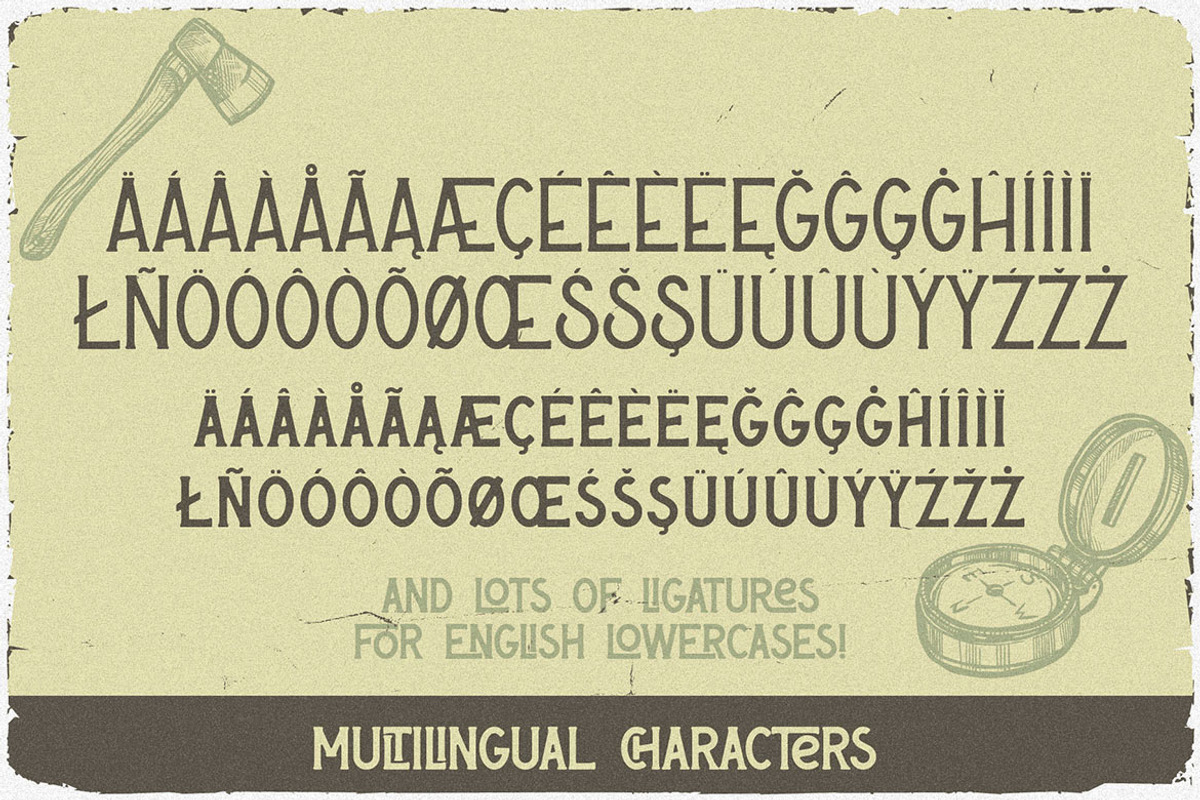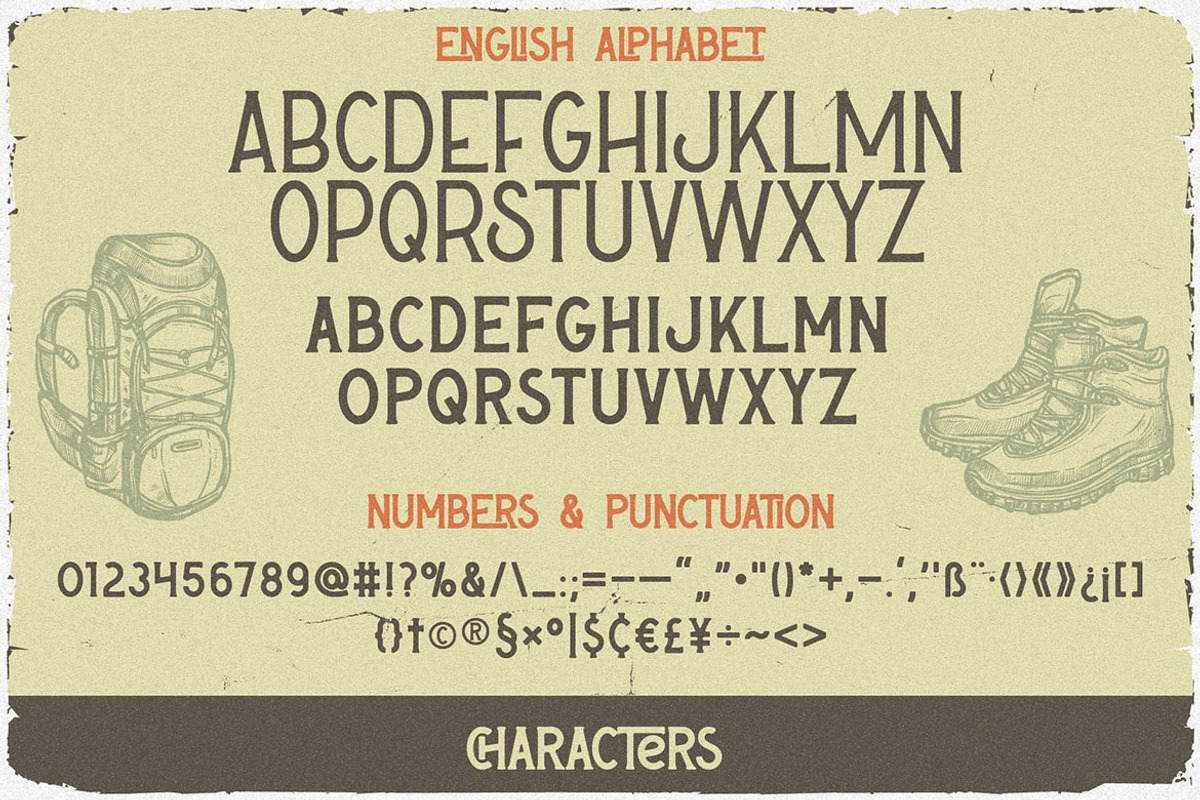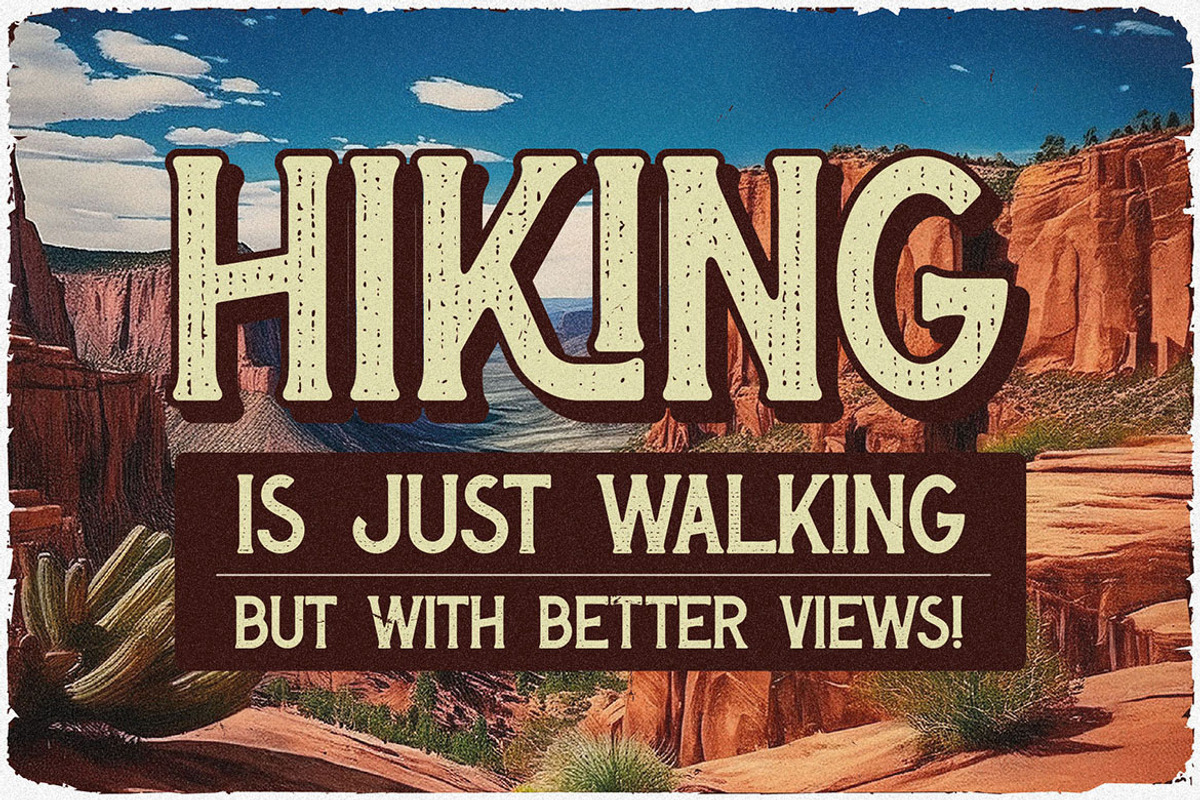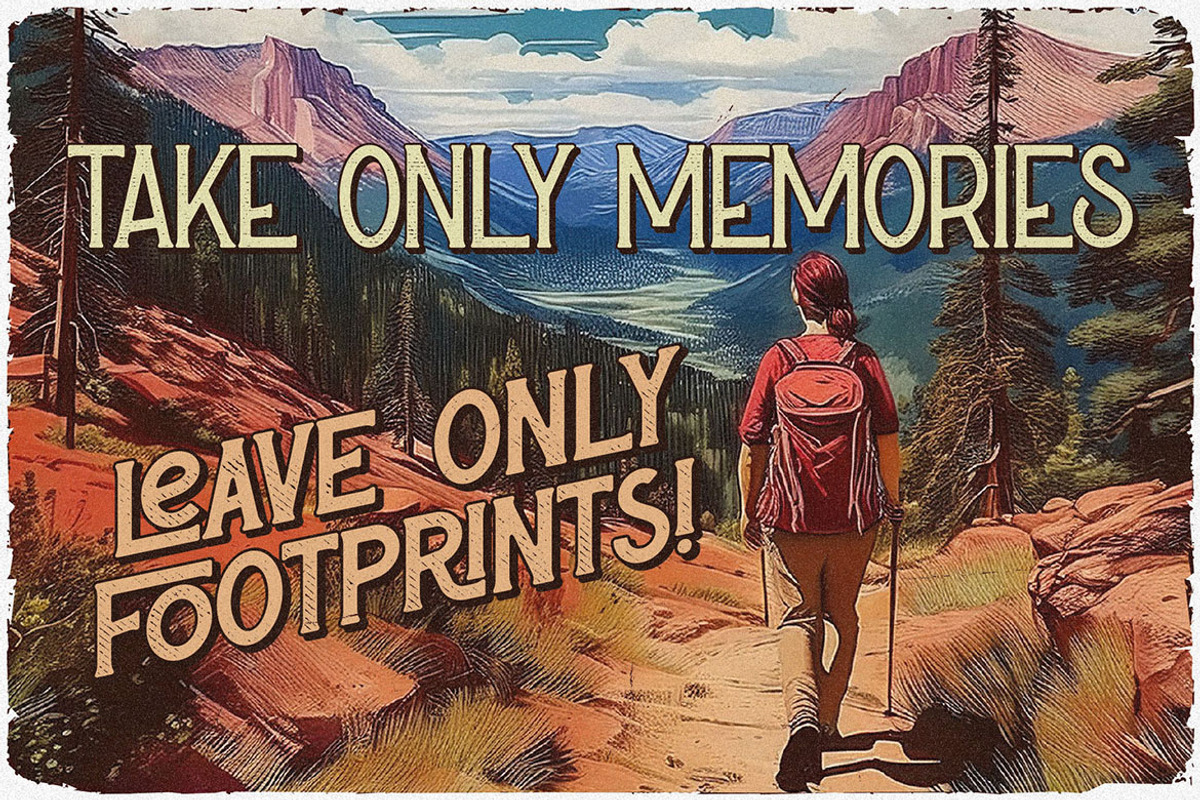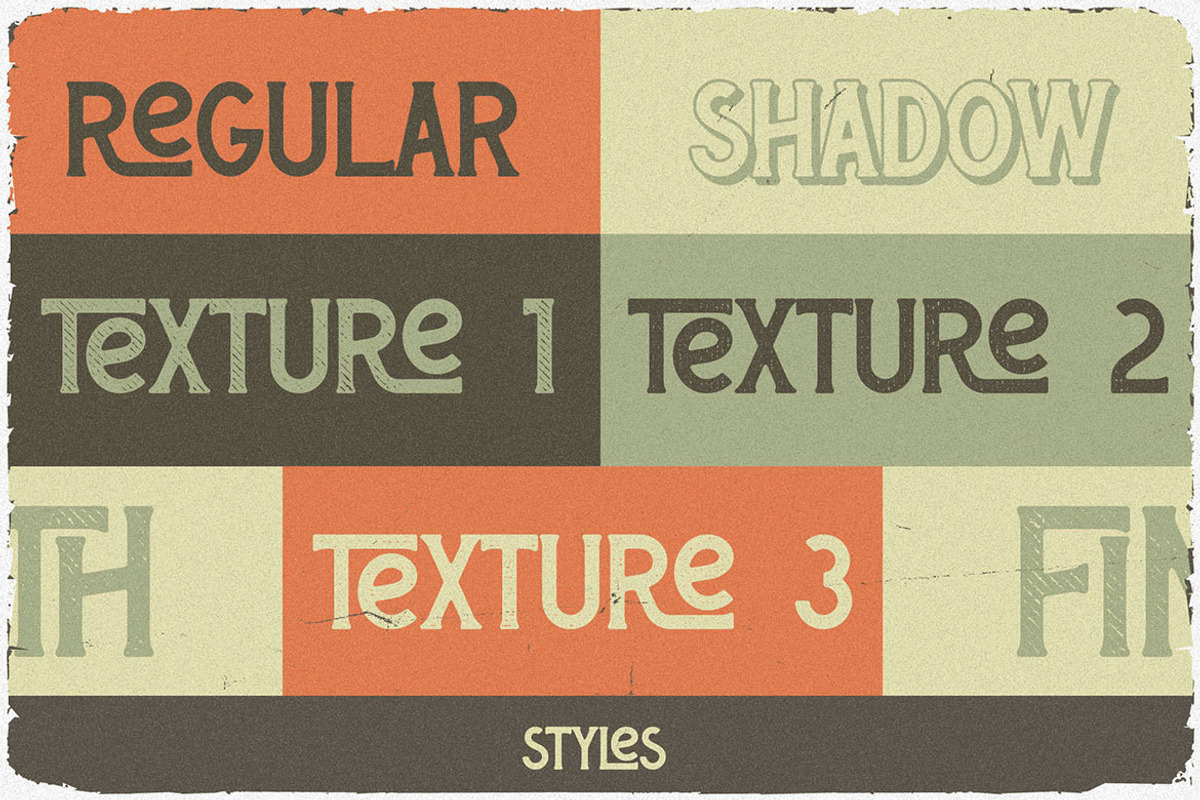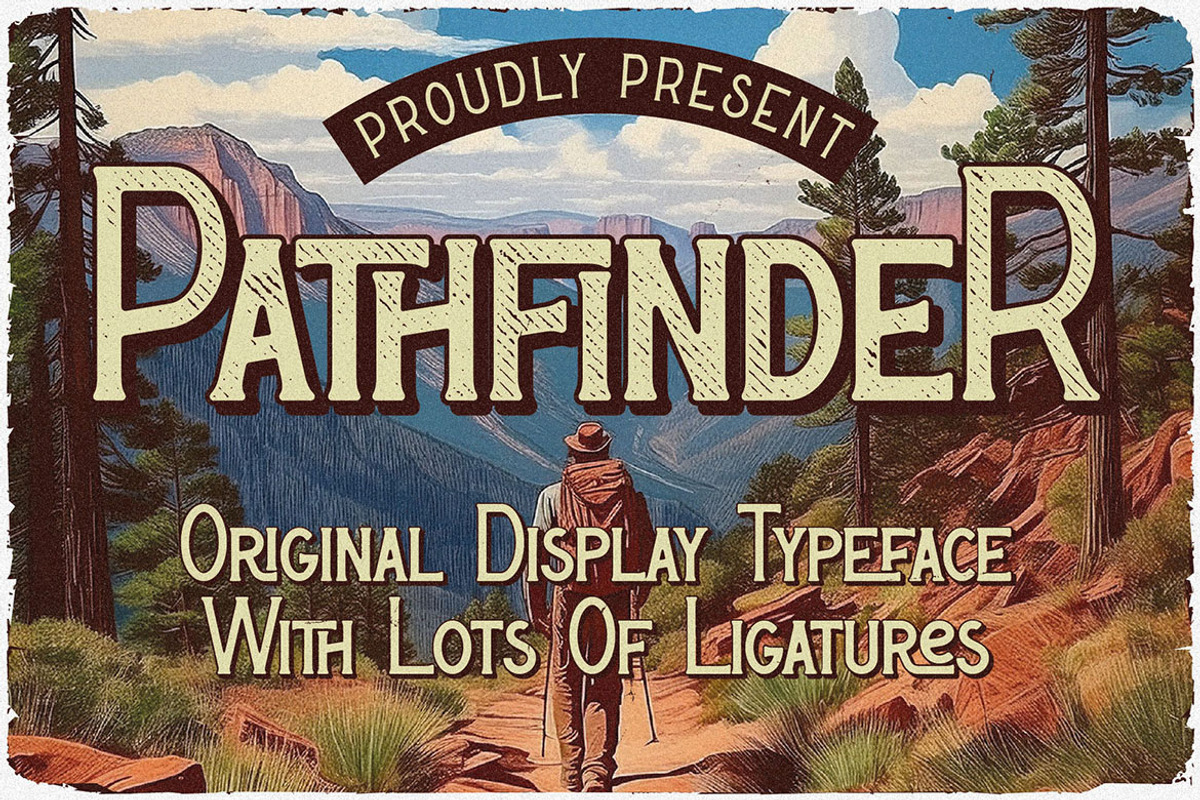
Pathfinder - Retro Ligature Font
Unique, vintage, textured, simple, retro & display serif font. Comes with multilingual support & lot of ligatures + shadow & 3 textured font versions - great for your new logo, monogram or branding project.
- 5 font versions - regular, shadow & 3 textured font versions
- Multilingual support & lot of ligatures